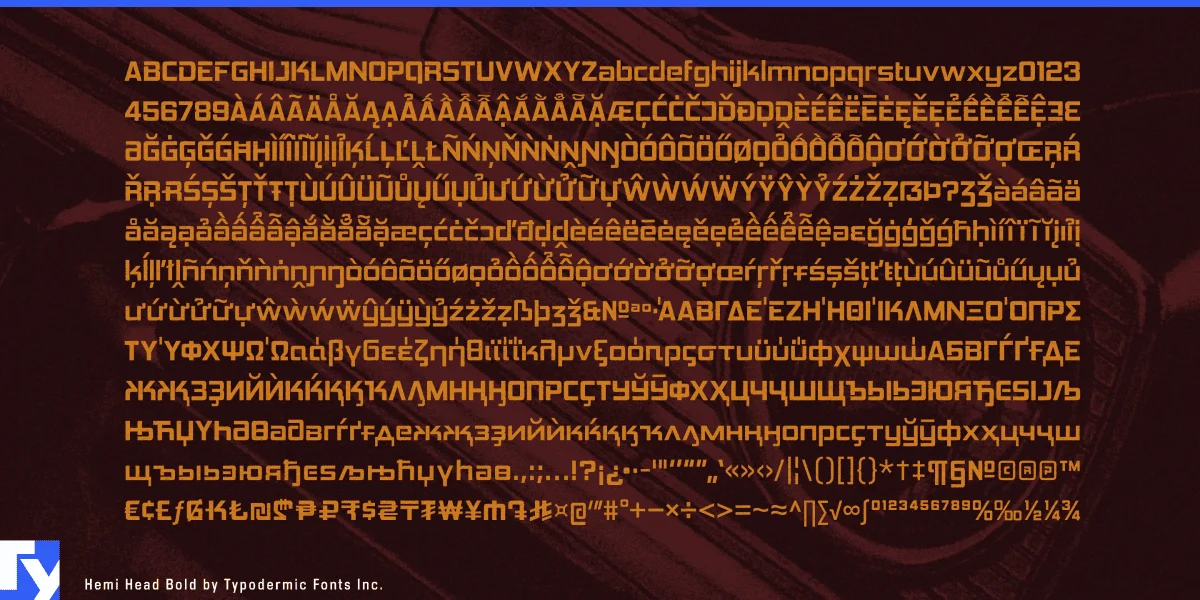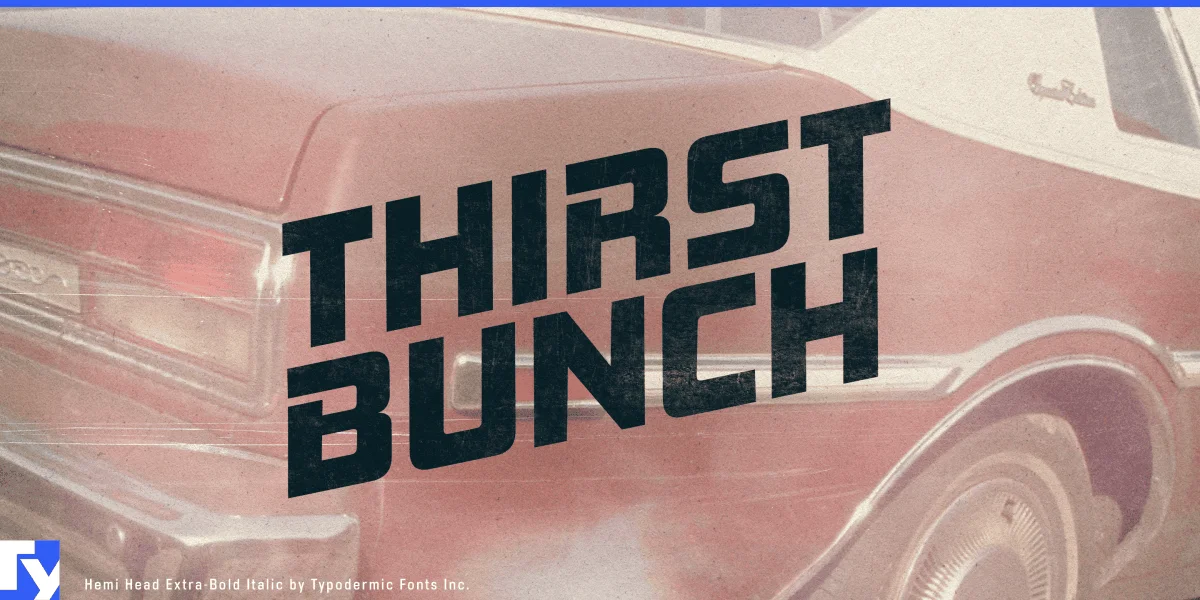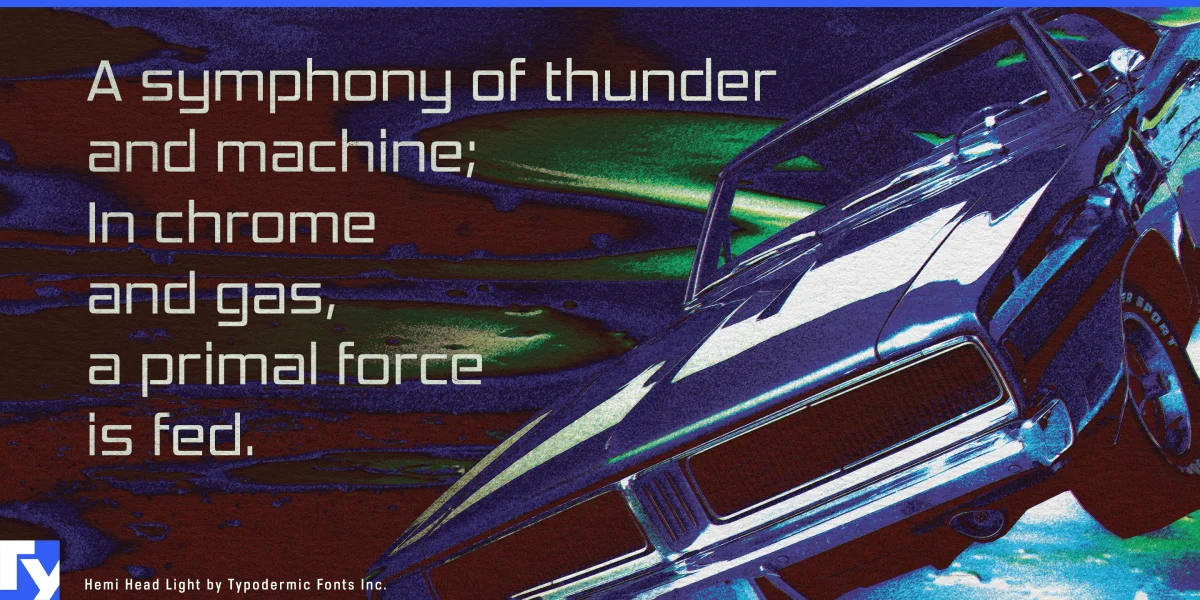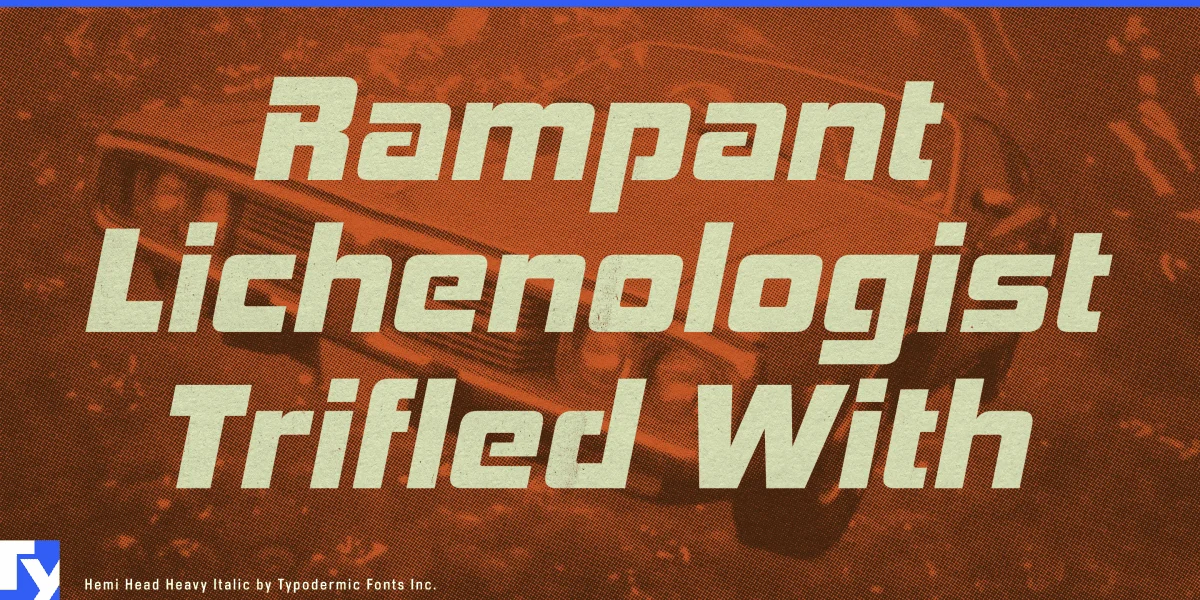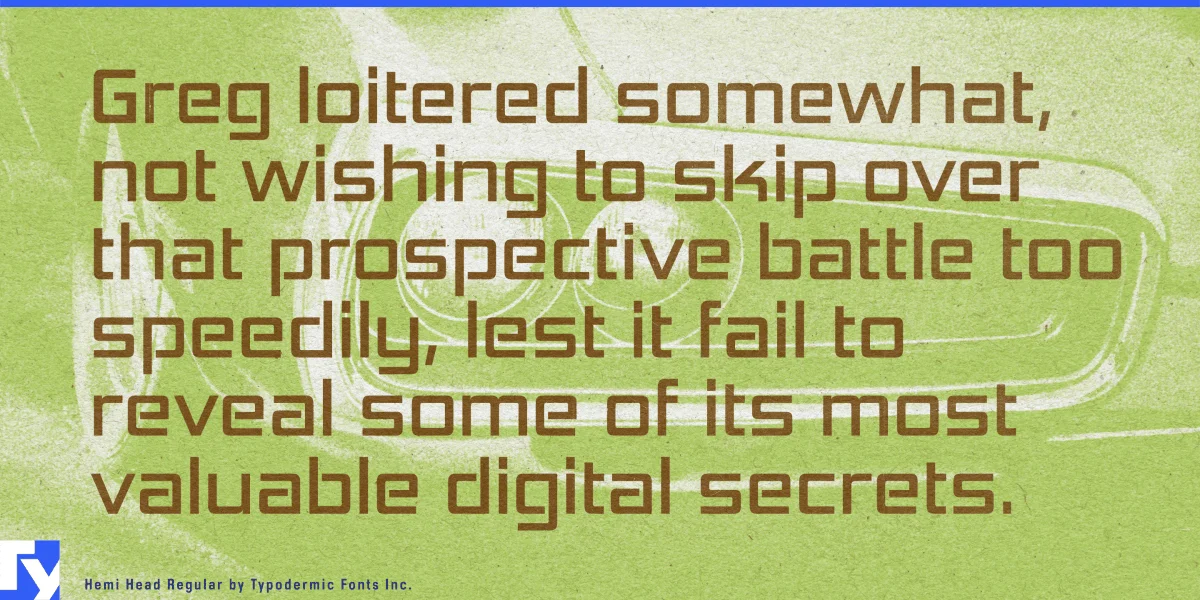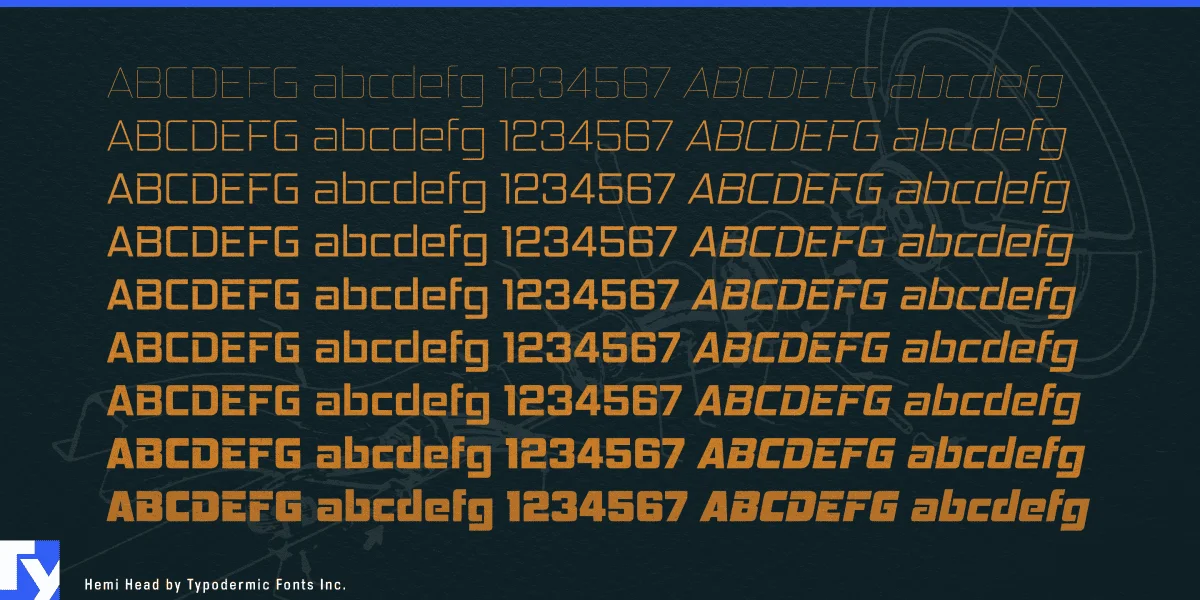
Ladies and gentlemen, start your engines! Hemi-Head has roared onto the typographic track, and it’s here to leave the competition in its dust. This is a high-octane, tire-smoking beast of a typeface that screams, “American muscle” from every squared-off corner and stylish gap.
Born in the white-hot crucible of ’60s and ’70s Detroit iron, Hemi-Head is more than just a font—it’s a time machine on four wheels, ready to transport your designs back to an era when horsepower was king and the quarter-mile was holy ground. Each glyph looks like it was chiseled from the same Detroit steel that gave us legends like the Dodge Charger and the Plymouth Barracuda, with a constructivist squareness that would make a Soviet propaganda poster blush with envy. Hemi-Head comes in a lineup of eight tire-shredding weights, letting you dial the intensity from “Sunday cruise” to “nitrous-injected drag race.” Need a typeface that purrs like a well-tuned slant-six? Hemi-Head’s got you covered with its lighter weights. Want to make your message roar louder than a 426 Hemi at full throttle? Crank it up to the heavy weights and watch the pavement buckle under the sheer force of your typography.
But Hemi-Head isn’t just about raw power—it’s got the handling to match. Its italics cut through visual noise like a finely-tuned suspension carving up mountain roads. Whether you’re designing a logo that needs to go from 0 to 60 in 2.5 seconds, or crafting a tech branding that’s more cutting-edge than a Chrysler Turbine Car, Hemi-Head is your typographic pit crew. And just when you thought it couldn’t get any more boss, Hemi-Head proves it’s got more linguistic horsepower than a polyglot drag racer. This bad boy can lay down smokin’ hot type in more languages than you can shake a dipstick at. From the autobahns of Germany to the sun-baked roads of Spain, Hemi-Head is ready to take your message on a wild linguistic road trip across most of Europe and beyond. It’s for the rebels, the speed freaks, the ones who hear “You can’t do that” and respond by pushing the pedal to the metal. Whether you’re designing for grease monkeys or Silicon Valley visionaries, Hemi-Head is your passport to the fast lane of typography.
Don’t just design—design with Hemi-Head, and leave the competition choking on your typographic burnout. Now, grab that shifter, punch it, and let’s see what this baby can do!